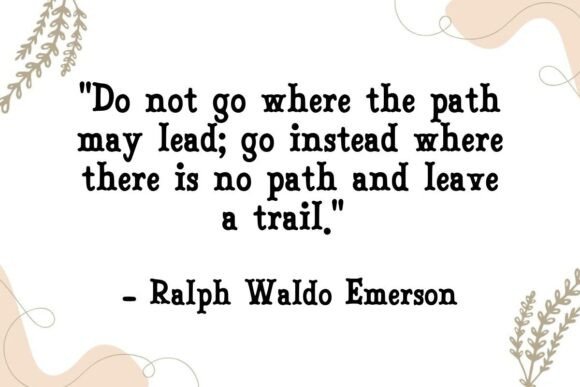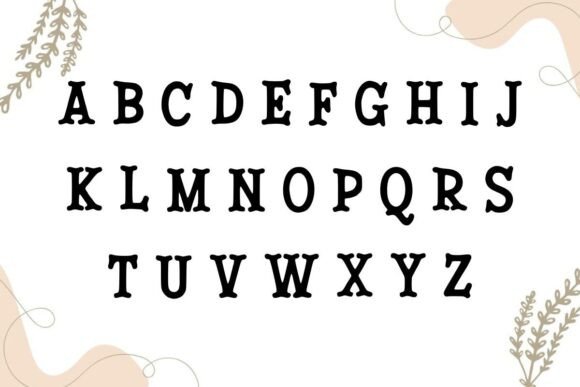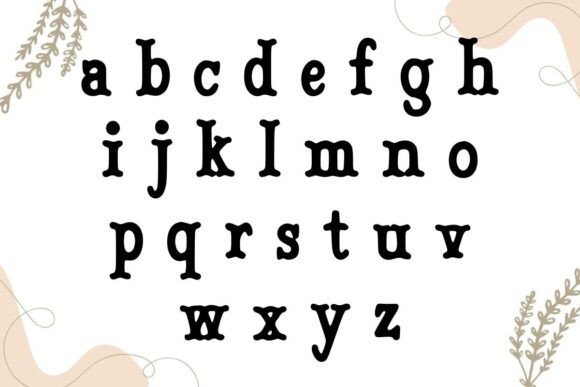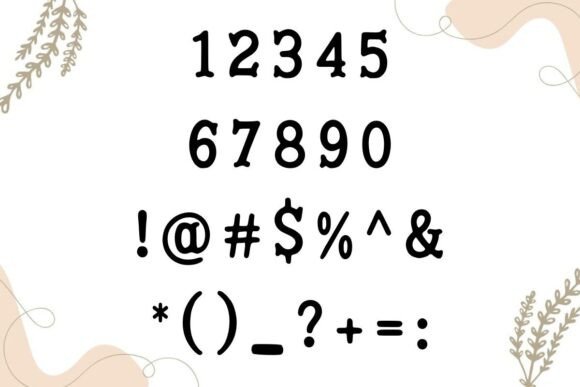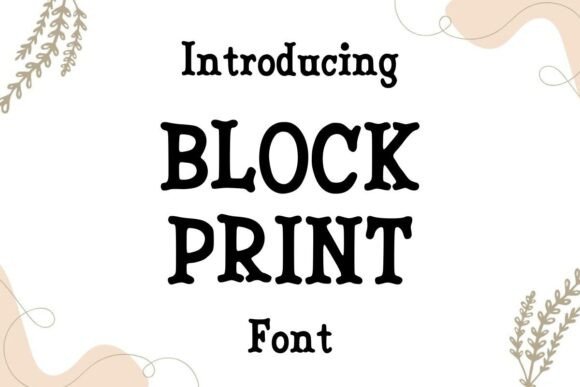
Introducing Block Print Font: A Timeless Typographic Voice
Are you looking for a font that embodies the simplicity and charm of handcrafted printing? Look no further than “Block Print,” a versatile typeface that captures the essence of vintage block print designs. With its strong, clean lines and slightly textured edge, this font offers a classic yet contemporary feel that’s perfect for a wide range of design projects.
The Charm of Block Print
Block Print font is inspired by the traditional printing techniques used in the past, where artisans would carve designs into wooden blocks and ink them to create prints. The result was a distinctive, hand-crafted look that was both rustic and charming. With Block Print font, you can bring this timeless aesthetic to your designs without the need for actual block printing.
Key Features of Block Print Font
- Strong, clean lines: Block Print font features bold, well-defined lines that give it a sturdy, dependable feel.
- Slightly textured edge: The font’s edges have a subtle texture that gives it a hand-crafted feel and adds to its vintage charm.
- Classic yet contemporary: Block Print font strikes the perfect balance between traditional and modern design elements, making it suitable for a wide range of projects.
- Versatile: This font can be used for posters, labels, packaging, and any other project that needs a touch of retro flair.
Uses for Block Print Font
Block Print font is perfect for designers and crafters who want to add a touch of nostalgia to their work. Here are some ideas for using this font:
- Posters and flyers: Use Block Print font to create eye-catching posters and flyers that grab attention and evoke a sense of nostalgia.
- Labels and packaging: Add a touch of vintage charm to your product labels and packaging with Block Print font.
- Branding and logos: Use Block Print font to create a distinctive and memorable brand identity that stands out from the crowd.
- Stationery and invitations: Add a touch of elegance and sophistication to your stationery and invitations with Block Print font.
Tips for Using Block Print Font
To get the most out of Block Print font, here are some tips to keep in mind:
- Use it boldly: Block Print font is designed to make a statement, so don’t be afraid to use it in bold, eye-catching ways.
- Experiment with colors: The font’s textured edge looks great in a range of colors, so don’t be afraid to experiment and find the perfect hue for your project.
- Mix it with other fonts: Block Print font pairs well with a range of other fonts, so feel free to get creative and mix it with other typefaces.
Block Print font is a versatile and charming typeface that’s perfect for designers and crafters who want to add a touch of nostalgia to their work. With its strong, clean lines and slightly textured edge, this font offers a classic yet contemporary feel that’s sure to make your designs stand out. Whether you’re creating posters, labels, packaging, or any other type of project, Block Print font is a great choice for adding a touch of retro flair.
Get Creative with Block Print Font